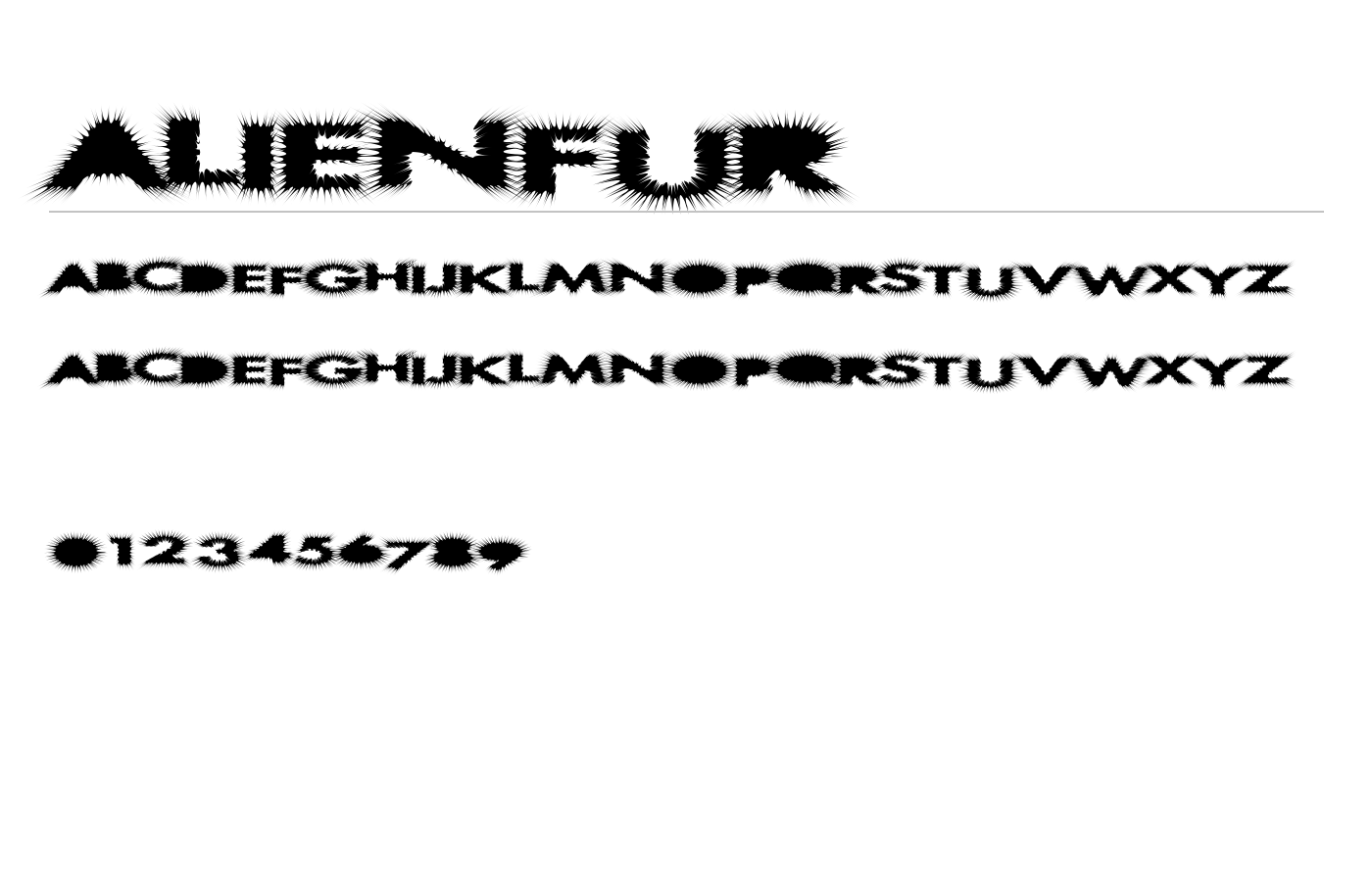
AlienFur is a bold, all-caps sans serif display font characterized by its sharp, spiky edges that create a textured, fur-like effect around each letter. Its striking, edgy style gives it a playful yet slightly alien and futuristic vibe, making it perfect for eye-catching logos, posters, and creative designs seeking a unique and energetic look. This font works best in larger sizes where its detailed texture can stand out and add a dynamic feel to branding or artistic projects.
AlienFur Font
About AlienFur Font
| Font family | AlienFur Font |
| Designer | max infeld |